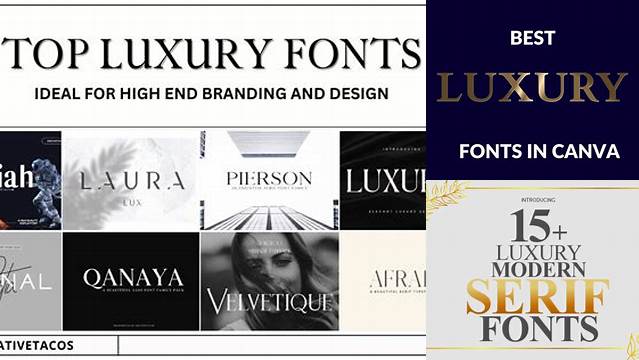
Luxury Fonts: Top Picks For High-End Design
Hey guys! Ever wondered how to make your designs scream luxury and sophistication? Well, the secret often lies in the fonts you choose! Let's dive into the world of the best luxury fonts and how they can transform your projects from 'meh' to 'marvelous.' Think of these fonts as the haute couture of typography – elegant, refined, and utterly captivating.
What Makes a Font 'Luxury'?
Before we jump into specific examples, let’s define what makes a font feel luxurious. It's not just about being expensive; it's about evoking a sense of elegance, exclusivity, and high-end quality. Luxury fonts often have: refined serifs, delicate strokes, balanced proportions, and a timeless appeal. They whisper rather than shout, conveying sophistication with every curve and line.
Why Luxury Fonts Matter
The fonts you choose are a critical component of your brand’s visual identity. Luxury fonts, in particular, play a significant role in shaping perception. Imagine a high-end fashion brand using Comic Sans – unthinkable, right? The right font communicates quality, attention to detail, and a commitment to excellence. Whether it's for logos, websites, or marketing materials, selecting the best luxury fonts can elevate your brand's image and attract a discerning audience. Remember, fonts communicate without saying a word.
1. Timeless Serif Fonts for Luxury Branding
When it comes to luxury fonts, you can never go wrong with a classic serif. Think of fonts like Times New Roman or Garamond, but with a modern twist. These fonts convey a sense of tradition, reliability, and sophistication. Using a serif font can instantly elevate your brand's image and create a feeling of high quality. For instance, Caslon is a beautiful choice for editorial designs, while Didot adds a touch of Parisian chic to any project. Remember, the key is to choose a serif that feels both timeless and fresh, striking the perfect balance between heritage and modernity. To maximize impact, pair it with a simple sans-serif for body text to create a visually appealing contrast. You can also play with different weights and sizes to give your typography a dynamic feel.
2. Elegant Sans-Serif Fonts for Modern Luxury
Sans-serif fonts, often seen as more modern and minimalist, can also exude luxury. The key is to choose fonts that have clean lines, balanced proportions, and a sense of understated elegance. Fonts like Helvetica, Futura, and Avenir are excellent choices. These fonts are highly versatile and can be used for a wide range of applications, from logos and headlines to body text. To create a luxurious feel with a sans-serif font, pay attention to kerning (the space between letters) and leading (the space between lines). Subtle adjustments can make a big difference in the overall appearance of your typography. You should also consider using a lighter weight of the font to give it a more delicate and refined look. These fonts are ideal for brands that want to project a sleek, modern, and sophisticated image.
3. Script Fonts That Evoke Luxury and Glamour
For a touch of glamour and personality, script fonts can be a fantastic choice. However, it's crucial to use them sparingly and strategically. Overusing script fonts can make your design look cluttered and difficult to read. Instead, use them for headings, logos, or accents to add a touch of elegance. Fonts like Brush Script, Bickham Script, and Edwardian Script are popular choices for luxury brands. These fonts have flowing lines and elegant curves that evoke a sense of sophistication and exclusivity. When using script fonts, make sure they are legible and pair them with a simpler font for body text. This will create a visually appealing contrast and ensure that your message is clear and easy to read. Always test your script fonts on different devices and screen sizes to ensure they look good in all contexts.
4. Display Fonts for High-End Statements
Display fonts are designed to make a statement. These fonts are often more decorative and attention-grabbing than standard fonts. When used correctly, display fonts can add a touch of luxury and personality to your designs. Choose display fonts that align with your brand's aesthetic and message. Some popular choices for luxury brands include Playfair Display, Lora, and Bodoni. These fonts have unique characteristics that make them stand out from the crowd. Use display fonts sparingly, reserving them for headings, logos, or other key elements. Make sure they are legible and pair them with a simpler font for body text. This will prevent your design from looking cluttered and ensure that your message is clear and easy to read. Experiment with different sizes and weights to create visual interest and draw attention to specific areas of your design.
5. Pairing Luxury Fonts for Maximum Impact
Choosing the right fonts is only half the battle. Pairing them effectively is just as important. A well-chosen font pairing can enhance the overall look and feel of your design, while a poorly chosen pairing can detract from it. When pairing fonts, look for fonts that complement each other in terms of style, weight, and personality. A classic pairing is a serif font for headings and a sans-serif font for body text. This creates a visually appealing contrast and makes your content easy to read. You can also experiment with different weights and sizes to add visual interest. Another approach is to pair two different weights of the same font family. This can create a subtle but effective contrast. If you're unsure where to start, there are many online resources that offer font pairing suggestions. Experiment and find pairings that work well for your brand and design aesthetic. Remember, the goal is to create a harmonious and visually appealing design that effectively communicates your message.
6. Font Size and Spacing for Luxury Appeal
Even the most luxurious fonts can look cheap if they are not used correctly. Font size and spacing play a crucial role in the overall appearance of your typography. When it comes to font size, less is often more. Using a smaller font size can create a sense of sophistication and elegance. However, make sure your font is still legible. Adjust the spacing between letters (kerning) and lines (leading) to improve readability. A well-spaced font will look more polished and professional. Experiment with different sizes and spacing until you find a combination that works well for your design. Keep in mind that the ideal font size and spacing may vary depending on the font you are using and the context in which it is being used. Always test your typography on different devices and screen sizes to ensure it looks good in all contexts. Pay attention to the details, and your typography will exude luxury and sophistication.
7. Color Considerations for Luxury Typography
The color of your typography can have a significant impact on the overall look and feel of your design. When it comes to luxury brands, subtle and sophisticated color palettes are often the best choice. Consider using muted tones, neutrals, or metallic accents to create a sense of elegance and exclusivity. Avoid bright, garish colors, as these can detract from the luxurious feel. Experiment with different color combinations to find a palette that works well for your brand. You can also use color to highlight specific words or phrases. For example, you might use a gold or silver color for headings to add a touch of glamour. When choosing colors for your typography, consider the overall context of your design. Make sure the colors complement the other elements of your design and help to create a cohesive and visually appealing look. Remember, the goal is to create typography that is both beautiful and readable.
30. Geometric Fonts: Minimalist Precision for Modern Luxury Brands
Geometric fonts embody minimalist precision, making them an ideal choice for modern luxury brands that prioritize simplicity and clarity. These fonts feature letterforms constructed from basic geometric shapes, such as circles, squares, and triangles, resulting in a clean and contemporary aesthetic. When selecting a geometric font, prioritize legibility and versatility to ensure that it works well across various media. Opt for fonts that have balanced proportions and consistent stroke weights. Use geometric fonts in logos, website typography, and marketing materials to convey a sense of sophistication and modernity. The understated elegance of geometric fonts can enhance your luxury brand’s visual identity, appealing to customers who appreciate clean lines and minimalist design. Remember, guys, luxury fonts are not just about looking pretty; they are about conveying the right message and evoking the right emotions!